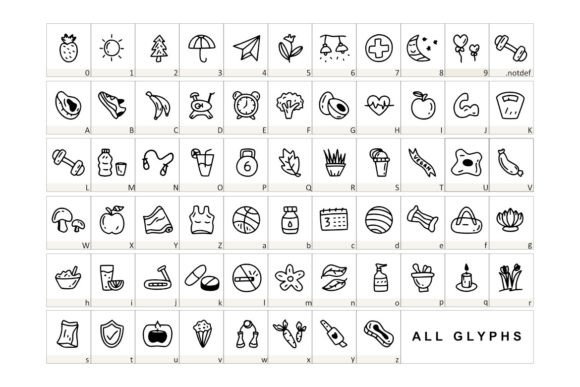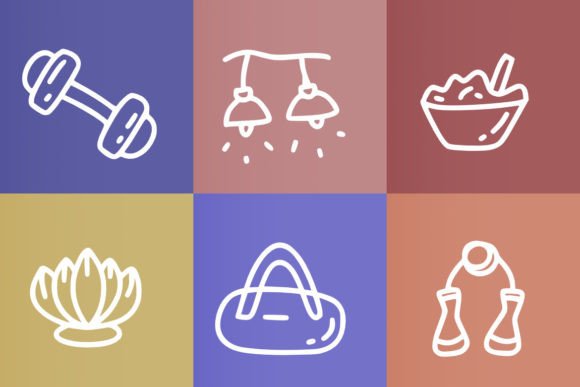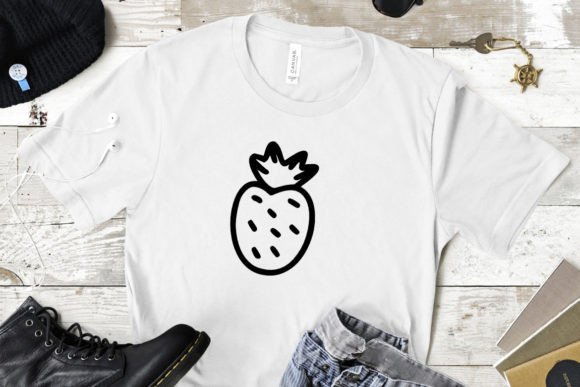
Introducing Healthy Love Font: The Fun and Versatile Dingbats Font for Creative Projects
Are you a designer, crafter, or DIY enthusiast looking for a unique and playful font to add a touch of personality to your projects? Look no further than Healthy Love Font, a fun and useful dingbats font that’s perfect for a wide variety of creative endeavors. In this article, we’ll explore the features and benefits of Healthy Love Font, and show you how it can elevate your designs and bring a smile to your audience’s faces.
What is Healthy Love Font?
Healthy Love Font is a dingbats font, which means it’s a collection of symbols, icons, and illustrations that can be used as a font in your designs. This particular font is packed with a wide range of fun and quirky illustrations that are perfect for adding a touch of whimsy to your projects. From stickers and posters to t-shirts, cards, and apparel graphics, Healthy Love Font is the perfect addition to your design toolkit.
Key Features of Healthy Love Font
- Fun and playful illustrations: Healthy Love Font features a wide range of fun and playful illustrations that are perfect for adding a touch of personality to your designs.
- Versatile and adaptable: This font is perfect for a wide variety of projects, from stickers and posters to t-shirts, cards, and apparel graphics.
- High-quality design: The font is designed with high-quality graphics, ensuring that your designs look professional and polished.
Why Use Healthy Love Font?
So why should you choose Healthy Love Font for your next project? Here are just a few reasons:
- Add a touch of personality: Healthy Love Font allows you to add a touch of personality to your designs, making them stand out from the crowd.
- Save time: With a wide range of illustrations at your fingertips, you can save time and effort in your design process.
- Increase engagement: The fun and playful illustrations in Healthy Love Font can help increase engagement and bring a smile to your audience’s faces.
Project Ideas for Healthy Love Font
Healthy Love Font is perfect for a wide range of projects, including:
- Stickers: Add a touch of personality to your stickers with fun and playful illustrations.
- Posters: Create eye-catching posters with Healthy Love Font’s unique illustrations.
- T-shirts: Design custom t-shirts with fun and quirky illustrations.
- Cards: Add a personal touch to your cards with Healthy Love Font’s illustrations.
- Apparel graphics: Use Healthy Love Font to create custom apparel graphics for your brand or business.
Healthy Love Font is a fun and useful dingbats font that’s perfect for designers, crafters, and DIY enthusiasts. With its wide range of fun and playful illustrations, versatility, and ease of use, it’s the perfect addition to your design toolkit. Whether you’re creating stickers, posters, t-shirts, cards, or apparel graphics, Healthy Love Font is sure to bring a touch of personality and whimsy to your designs. So why wait? Download Healthy Love Font today and start creating!